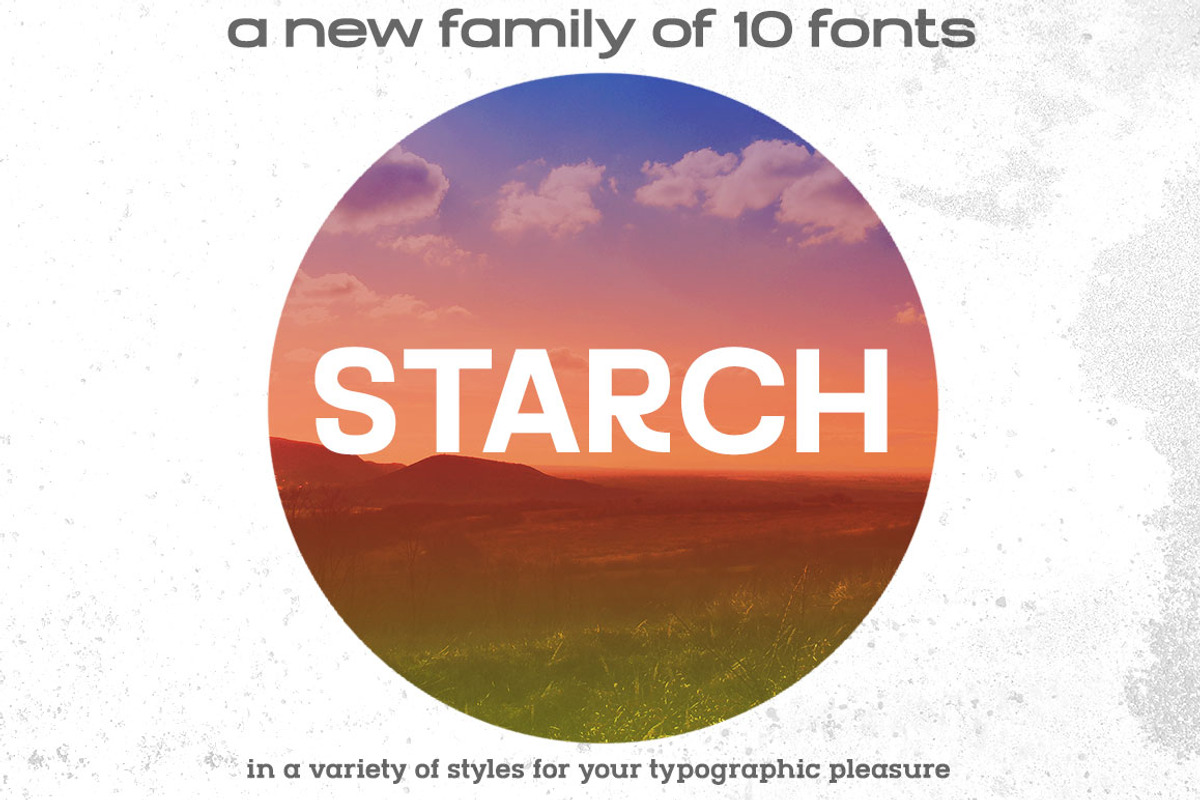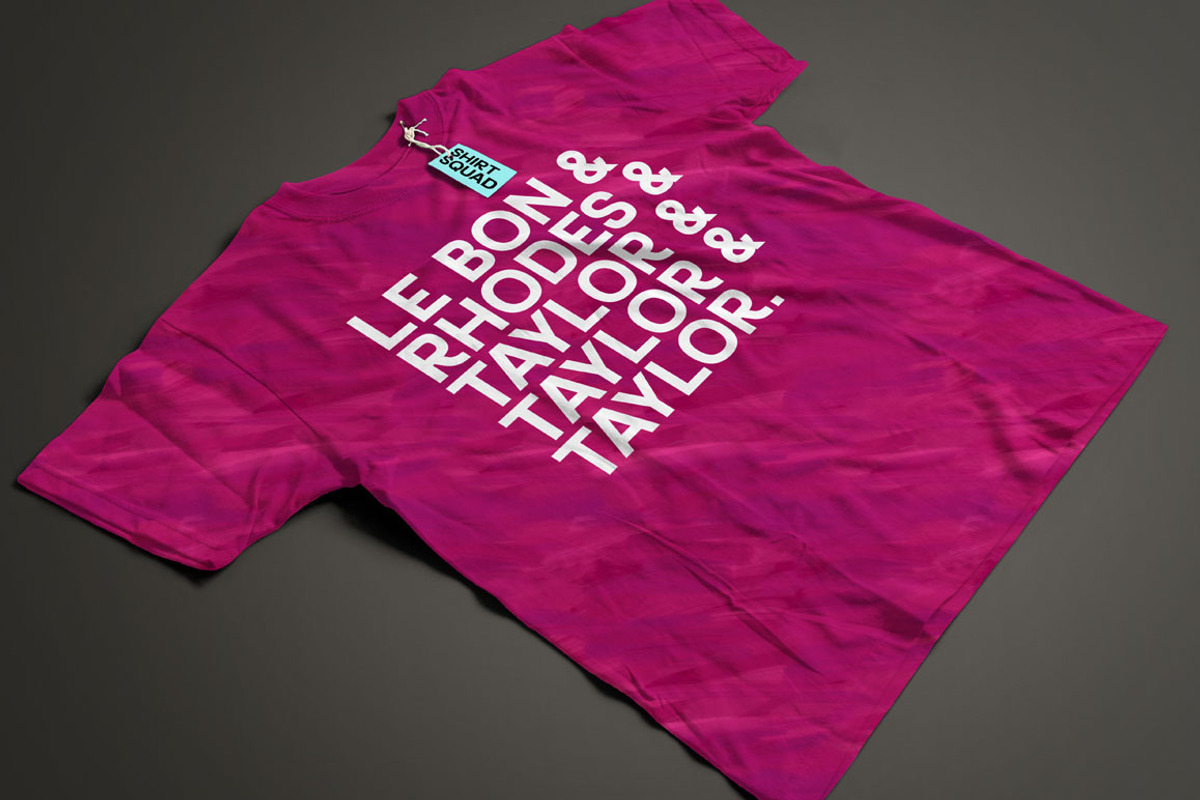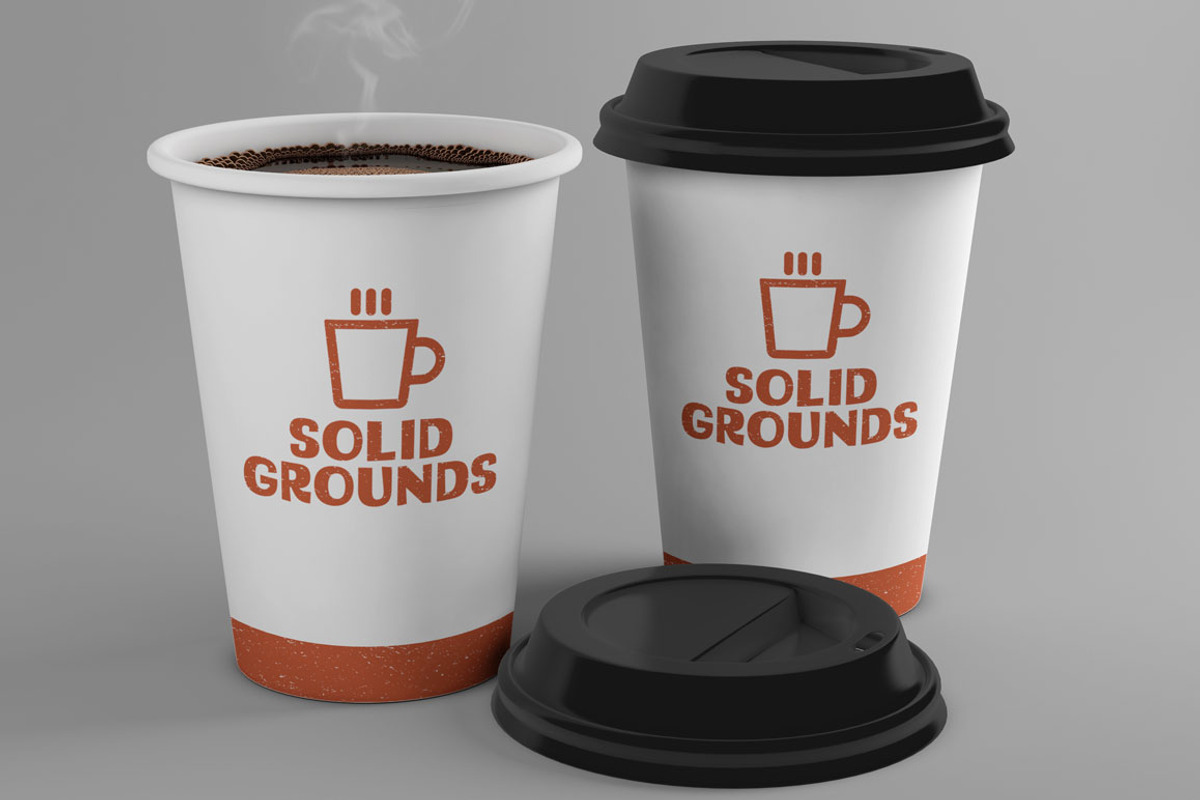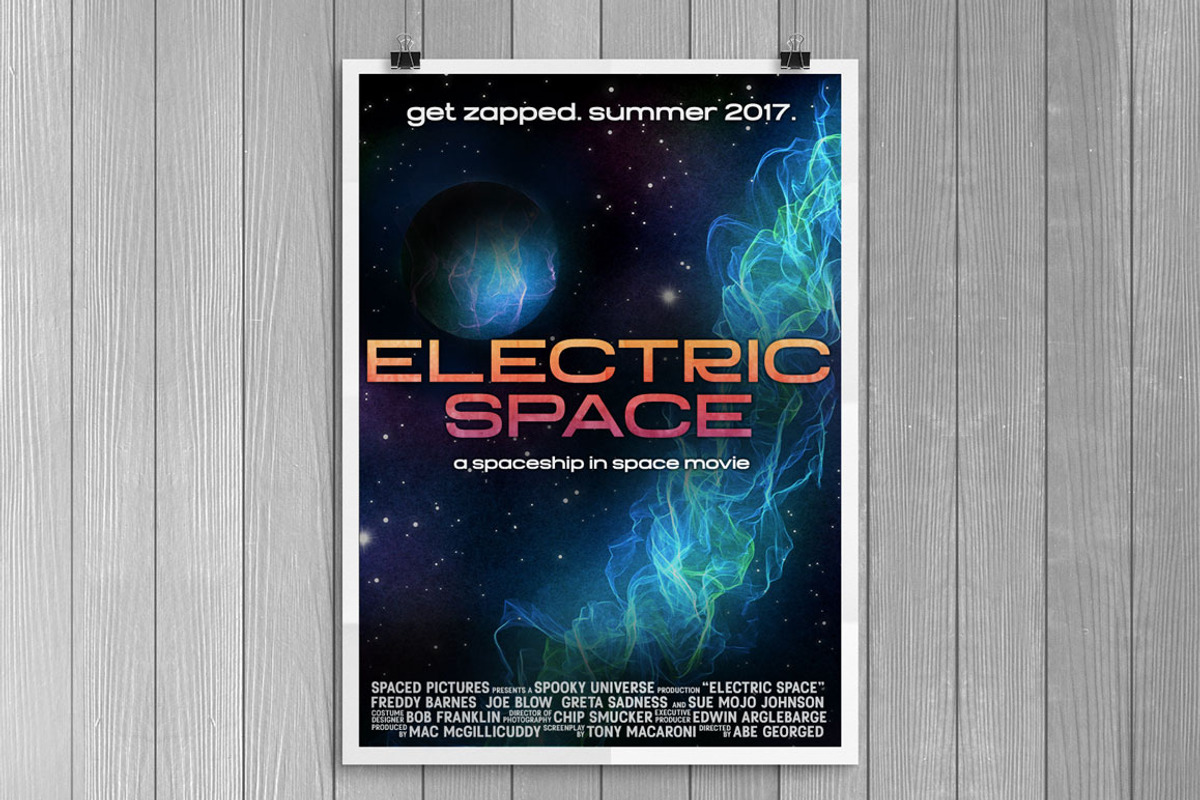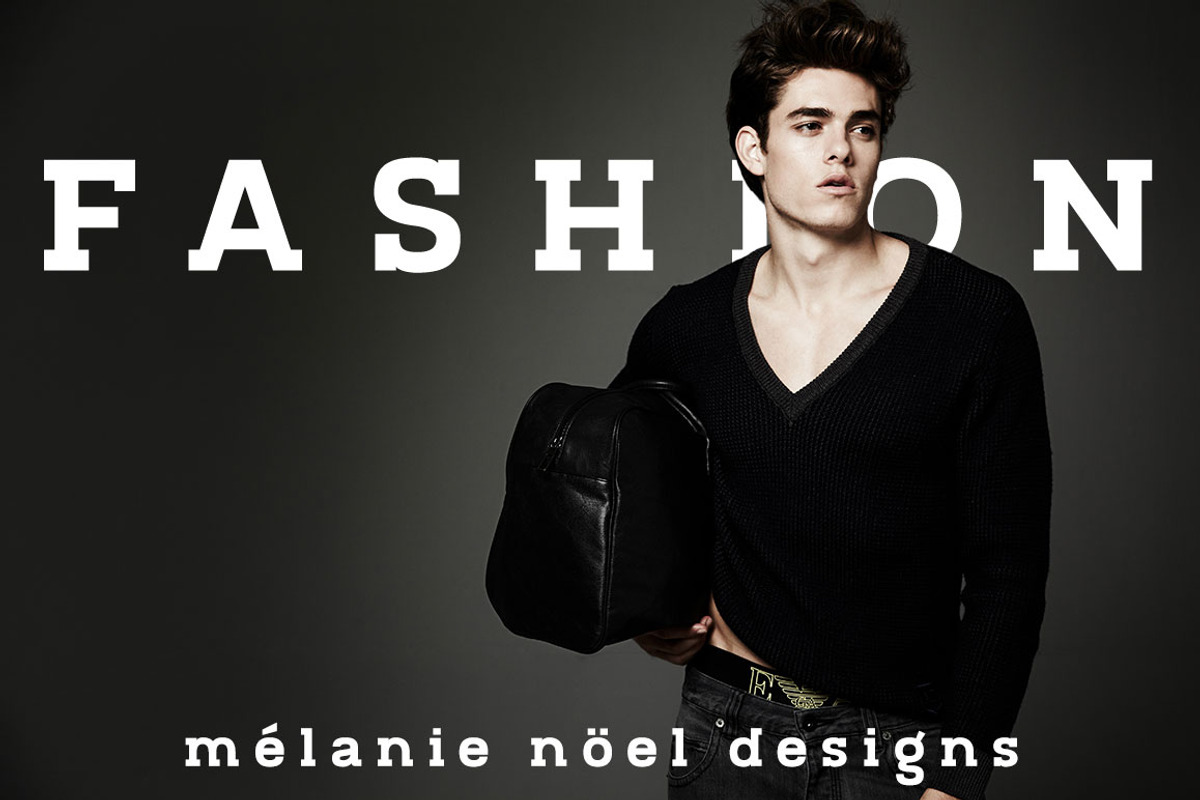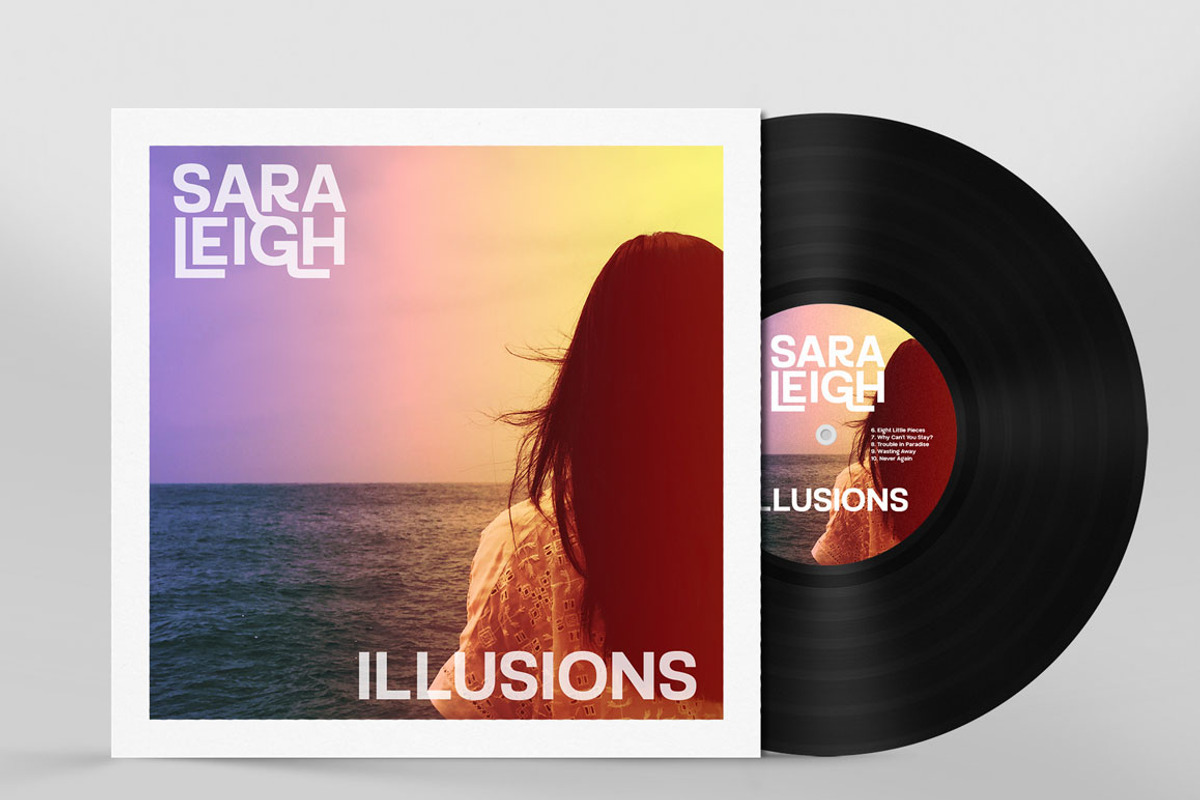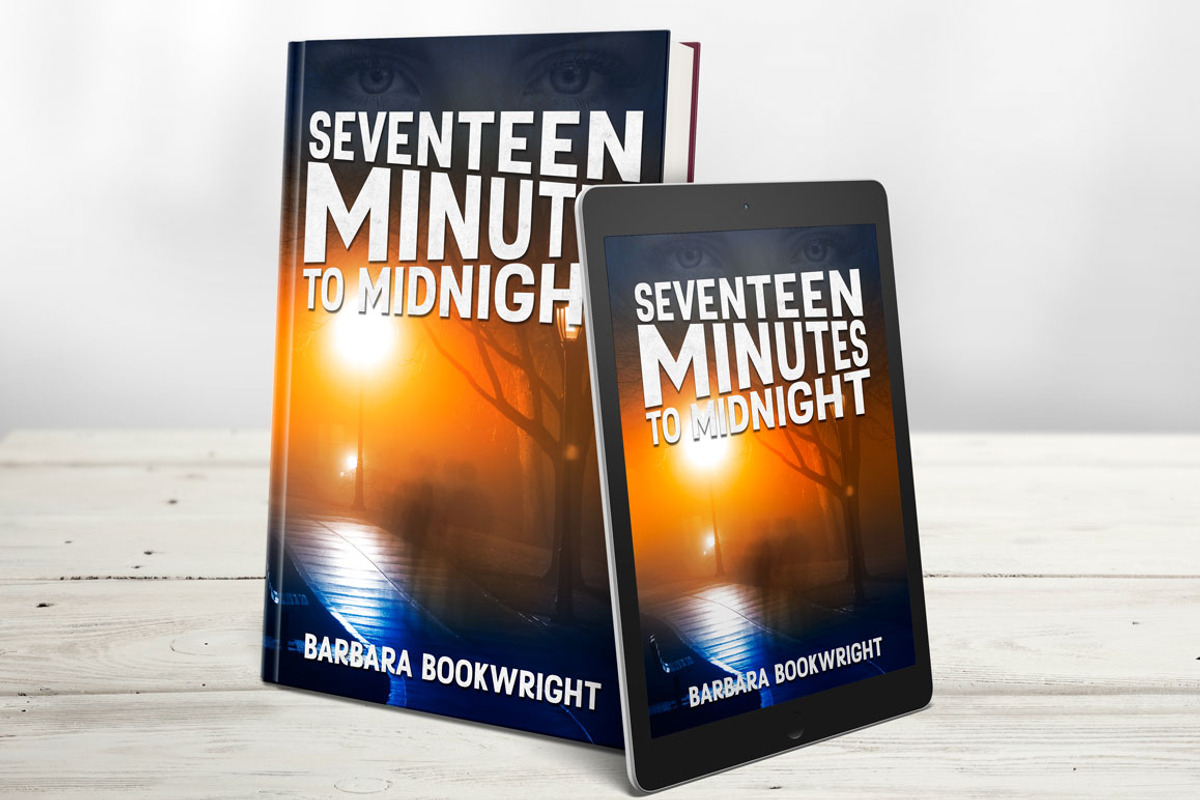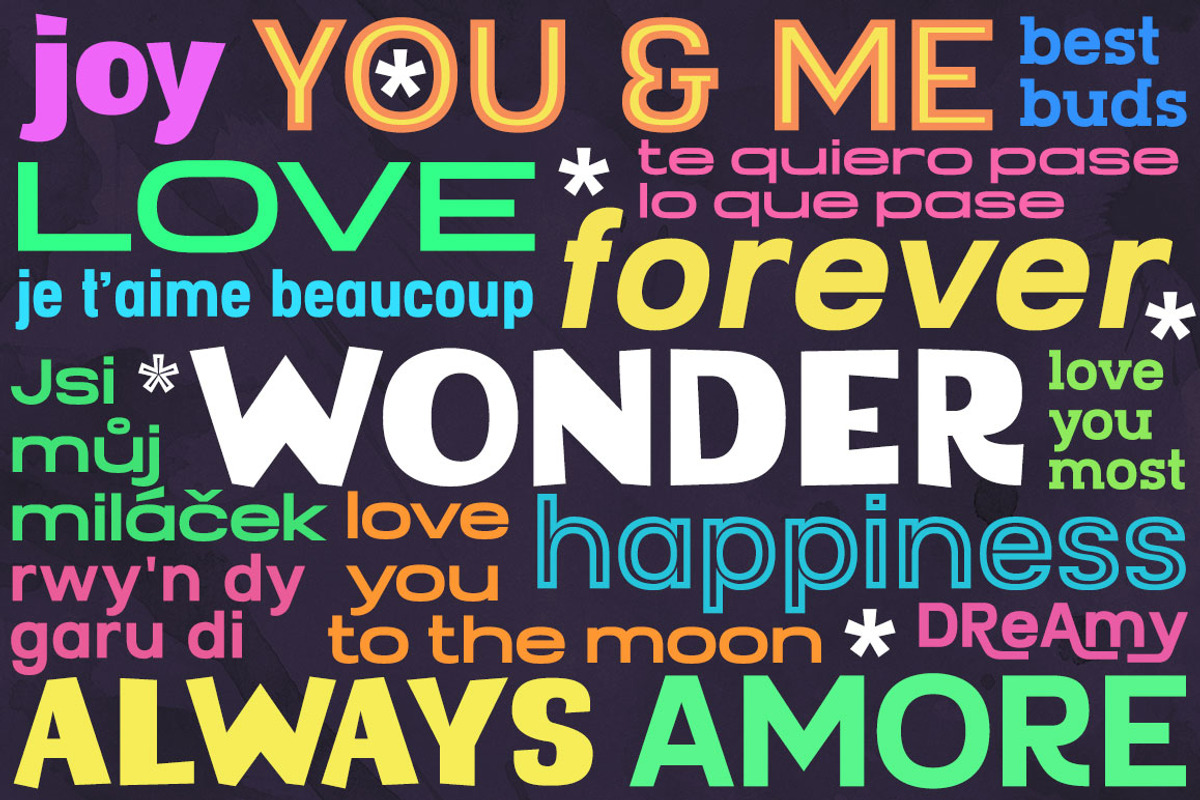
STARCH font family
STARCH font family by Missy Meyer is a font selected for branding, posters, packaging, typography.
- Your Starch download includes 10 fonts: Starch Regular (a classic modern sans-serif) Starch Oblique (an angled version of Regular) Starch Ex
Why STARCH font family is worth a look
STARCH font family by Missy Meyer fits naturally into Branding, posters, packaging, typography.